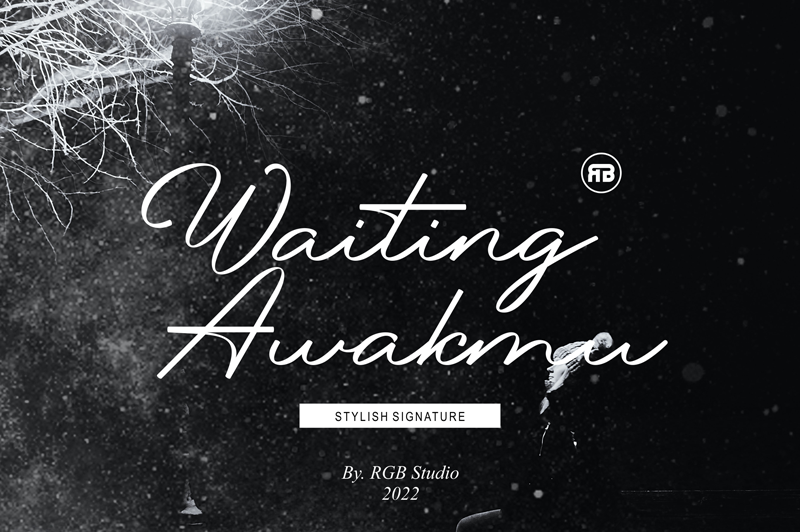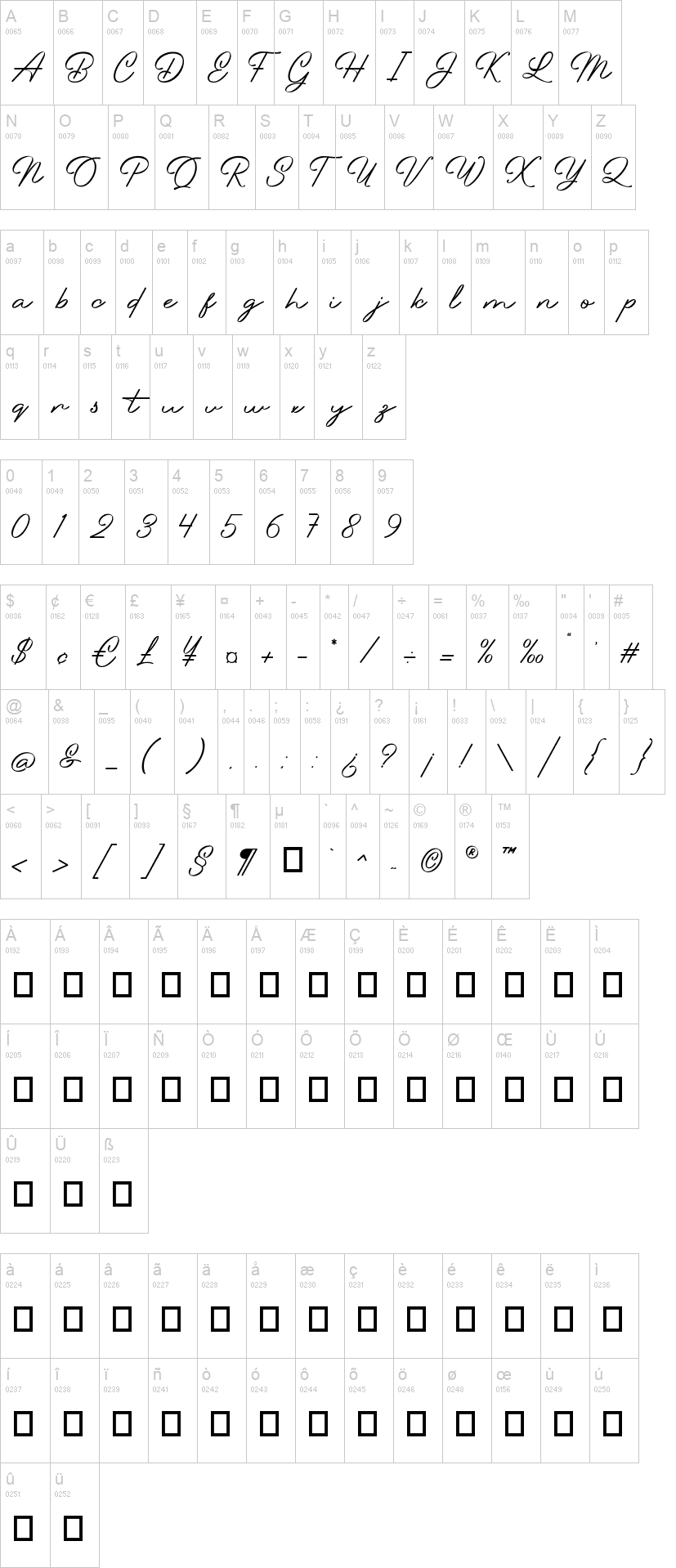
Note of the authorWaiting Awakmu is a classy handwritten font, This is a truly versatile font combining sophisticated, casual and even fun sides depending on the style you use.